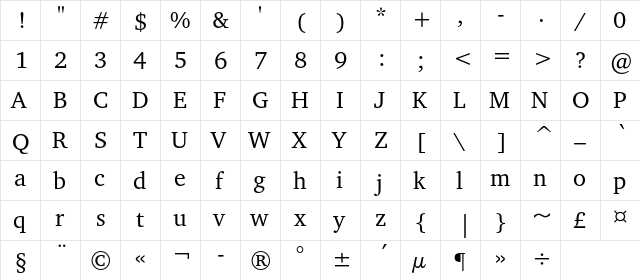
CharterC Regular
Design Context for CharterC Typeface
CharterC is a composed and adaptable typeface that performs quietly and consistently across a wide range of design contexts.